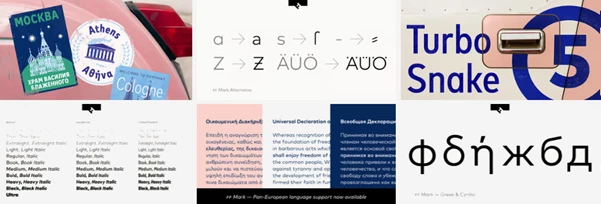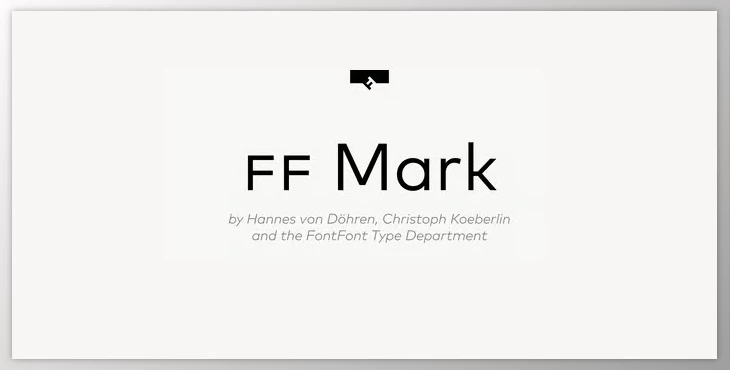
The FF Mark Font Family is a contemporary, sans-serif typeface designed by German foundry FontFont and made by Hannes von Döhren, Christoph Koeberlin, and the FontFont Type Department in 2013. It features ten weights between Hairline and Black with various typographical supports and features suited for film, television, advertising, packaging, editorial, branding, music, nightlife, software, gaming, and web-based works. These typographical supports include ligatures, alternate characters, case-sensitive forms, fractions (super and subscript), and various stylistic alternates.
The FF Mark Font Family offers a full set of figures, including oldstyle and lining figures in tabular and proportional widths. Designers are welcome to use as much precision as they need. The new versions of FF Mark W1G extend its capabilities even further as it includes a pan-European character set. This only further emphasizes its versatility as it provides support for languages in Western Europe, Eastern Europe, and Central Europe (Latin, Cyrillic, and Greek alphabets).